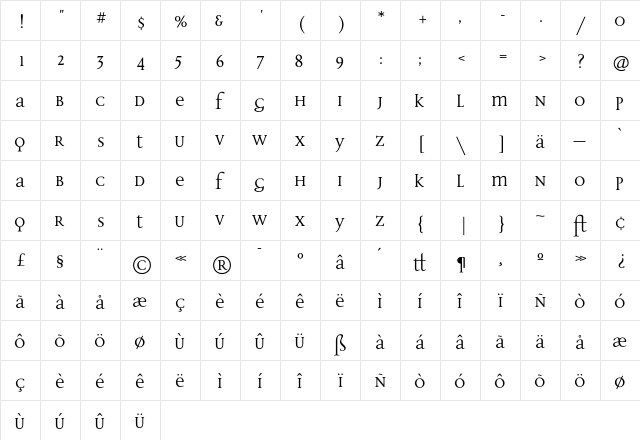
Disturbance Regular
Design Context for Disturbance Typeface
Disturbance takes a measured approach to typography — its balanced proportions and neutral character make it a reliable workhorse for both digital and print work.
Pro Tip: Use Disturbance in both headline and body roles to test its range before committing to a single application.